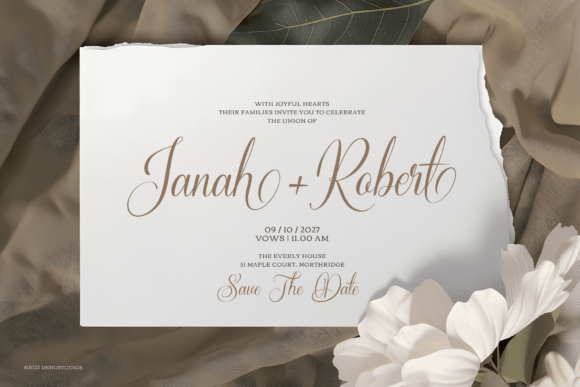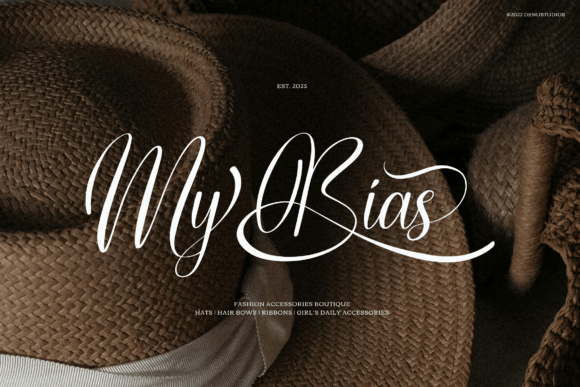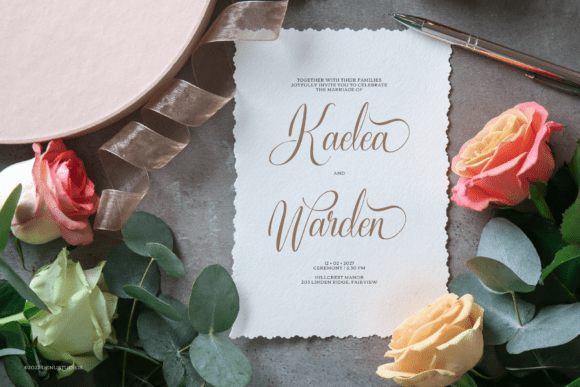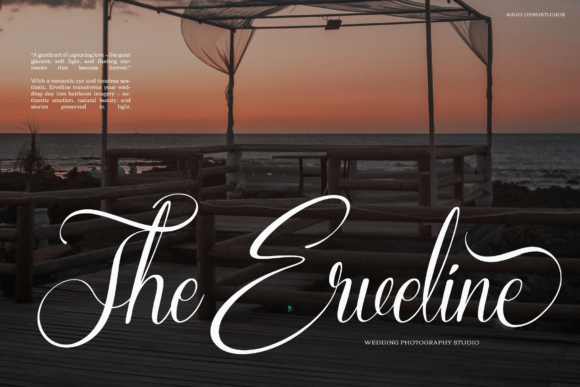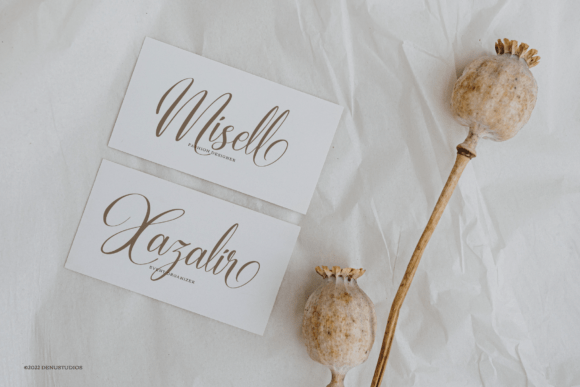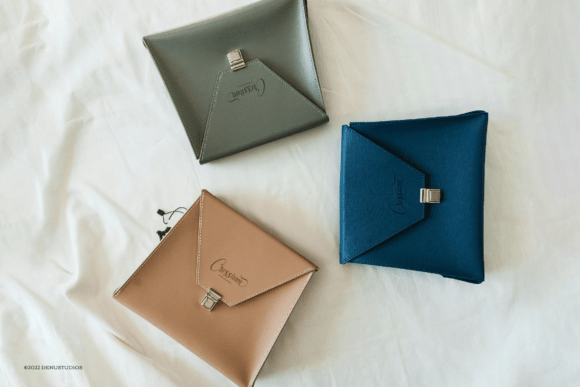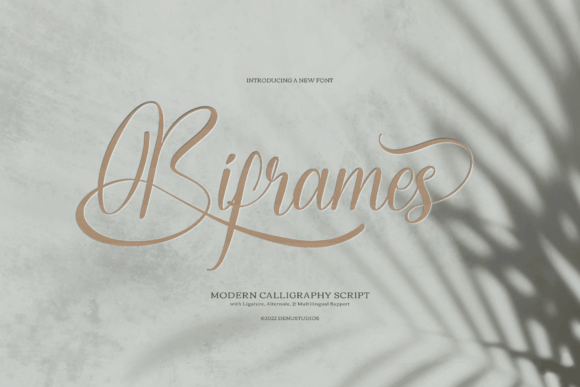
Biframes Font: Elevate Your Designs with Modern Calligraphy Elegance 🌿
Are you looking for a font that embodies the essence of luxury, sophistication, and romance? Look no further than Biframes, a stunning Modern Calligraphy Script typeface that is sure to elevate your designs to new heights. With its delicate and sweeping beauty, Biframes exudes grace and refinement, making it the perfect choice for designers and crafters seeking to add a touch of elegance to their work.
The Characteristics of Biframes Font
Biframes is characterized by its fine, high-contrast strokes and exaggerated, beautiful ligatures and alternates, giving the impression of true expert penmanship. This elegant font is designed to mimic the fluidity and expressiveness of handwritten calligraphy, making it ideal for a wide range of applications, from wedding stationery and high-end branding to sophisticated logos, book covers, and luxury editorial layouts.
Advanced Features of Biframes Font
One of the standout features of Biframes is its robust multilingual support and advanced OpenType features. This means that designers can create complex and beautiful text layouts with ease, using a wide range of languages and special characters. Additionally, Biframes includes PUA encoding, which makes all special characters and decorative elements easily accessible without the need for additional software.
Perfect for a Range of Design Applications
Biframes is a versatile font that can be used in a variety of design applications. Here are just a few examples of how you can use Biframes to elevate your designs:
- Wedding Stationery: Create beautiful wedding invitations, save-the-date cards, and other stationery with Biframes. Its elegant and romantic quality makes it perfect for the occasion.
- High-End Branding: Use Biframes to create sophisticated logos and branding materials for luxury brands. Its fine strokes and beautiful ligatures will add a touch of refinement to any brand.
- Book Covers: Biframes is an excellent choice for book covers, particularly for romance, fiction, and non-fiction books that require a touch of elegance.
- Luxury Editorial Layouts: Use Biframes to create stunning editorial layouts for luxury publications. Its advanced OpenType features and multilingual support make it perfect for complex text layouts.
Why Choose Biframes Font?
So why choose Biframes font for your next design project? Here are just a few reasons:
- Elegance and Sophistication: Biframes exudes elegance and sophistication, making it perfect for designers seeking to create refined and luxurious designs.
- Timeless Quality: Biframes has a timeless quality that will never go out of style. Its classic beauty and romantic feel make it an excellent choice for designers seeking to create designs that will stand the test of time.
- Advanced Features: Biframes includes advanced OpenType features and multilingual support, making it easy to create complex and beautiful text layouts.
- Easy to Use: With PUA encoding included, all special characters and decorative elements are easily accessible without additional software, making it easy to use and incorporate into your designs.
In conclusion, Biframes font is a stunning Modern Calligraphy Script typeface that is sure to elevate your designs to new heights. With its delicate and sweeping beauty, fine high-contrast strokes, and advanced OpenType features, Biframes is the perfect choice for designers and crafters seeking to add a touch of elegance and sophistication to their work. Whether you’re creating wedding stationery, high-end branding, book covers, or luxury editorial layouts, Biframes is an excellent choice. So why wait? Download Biframes font today and start creating beautiful, refined designs that will leave a lasting impression.